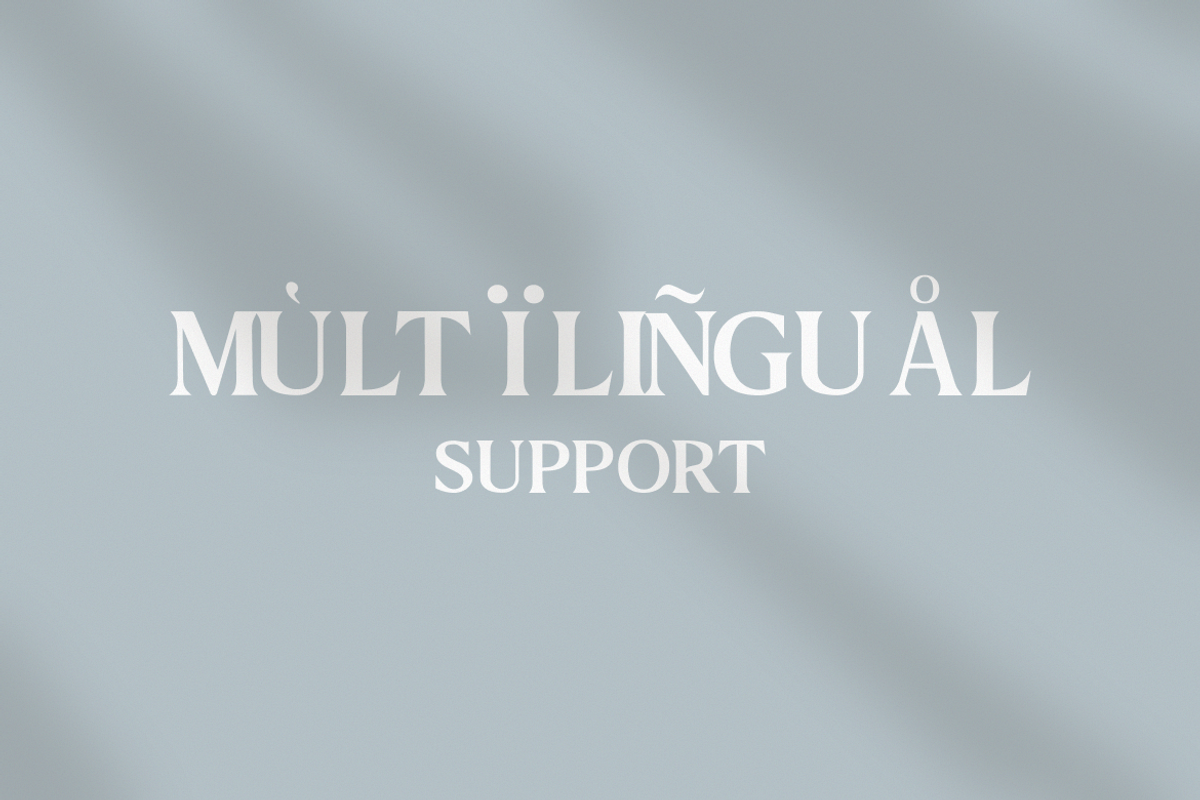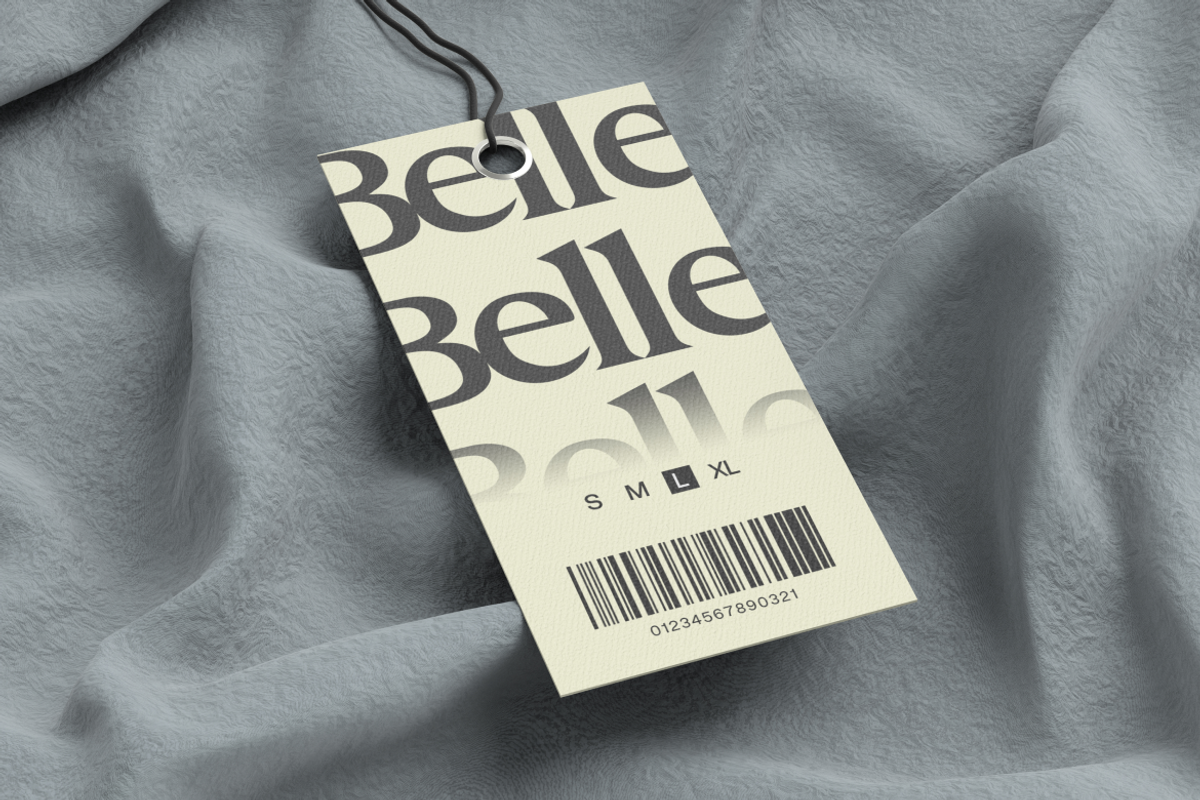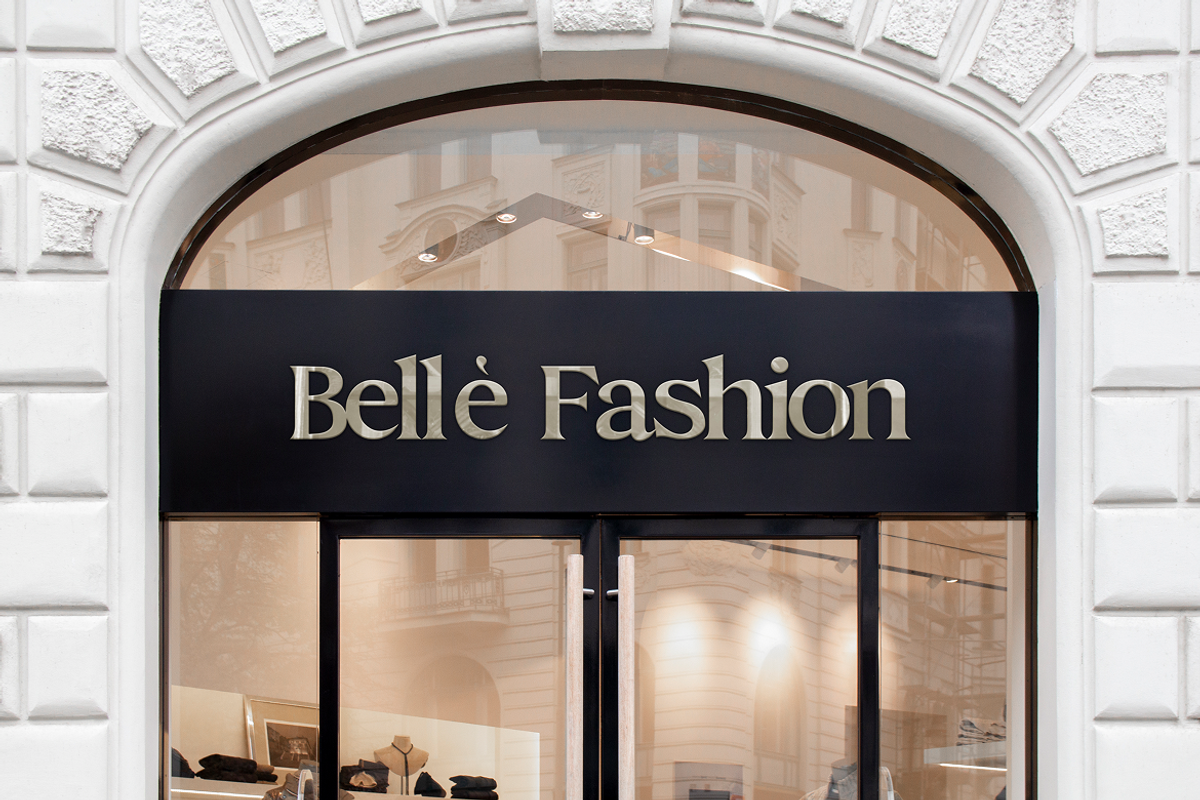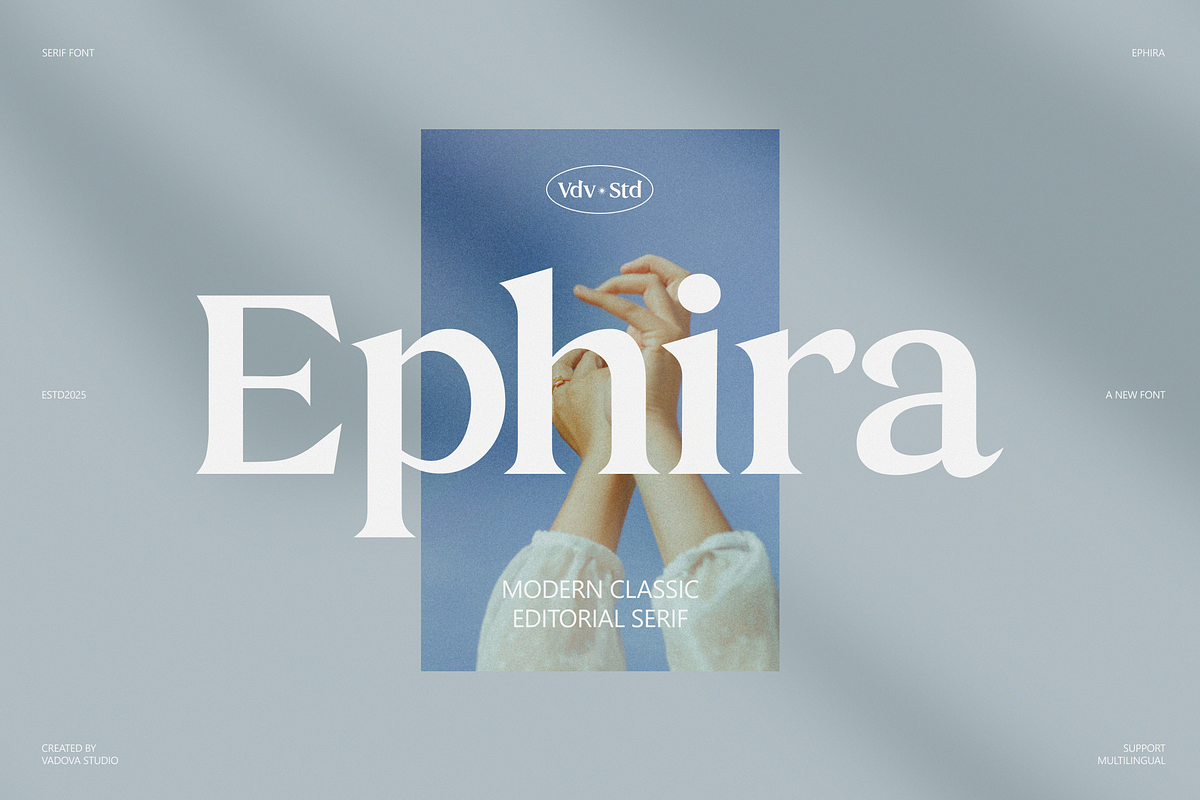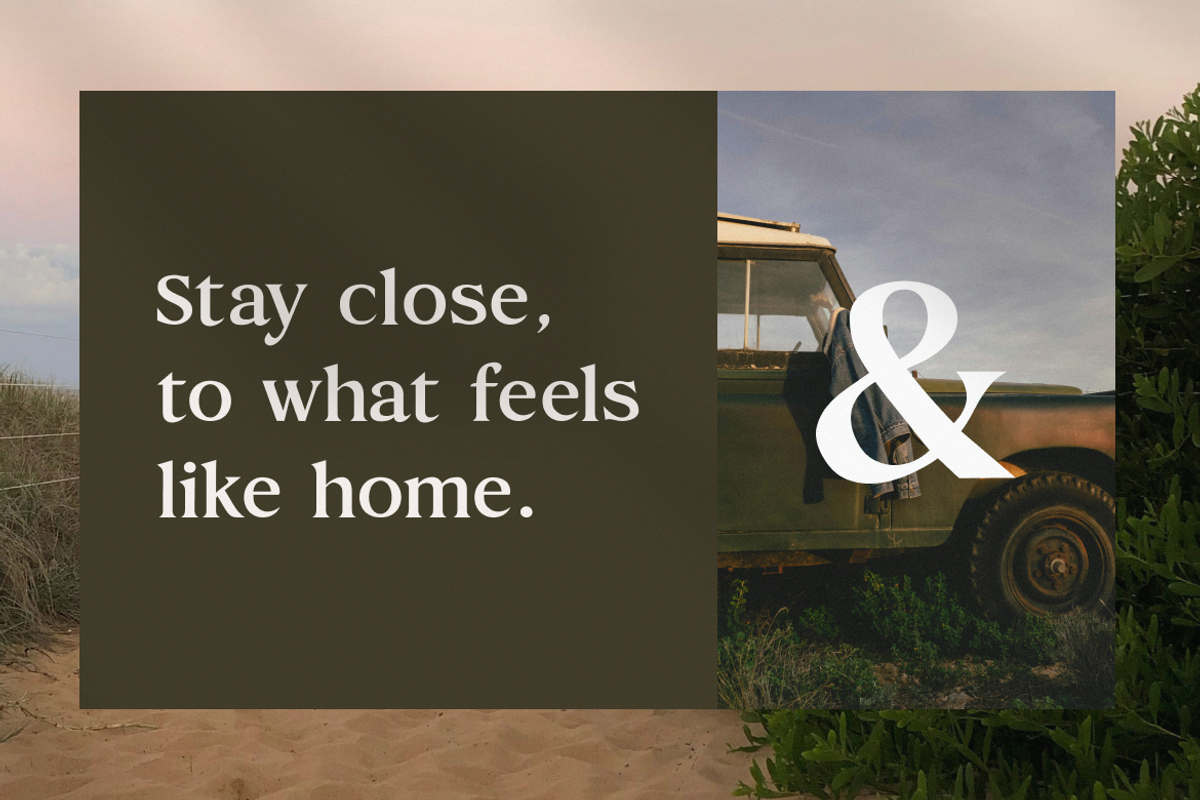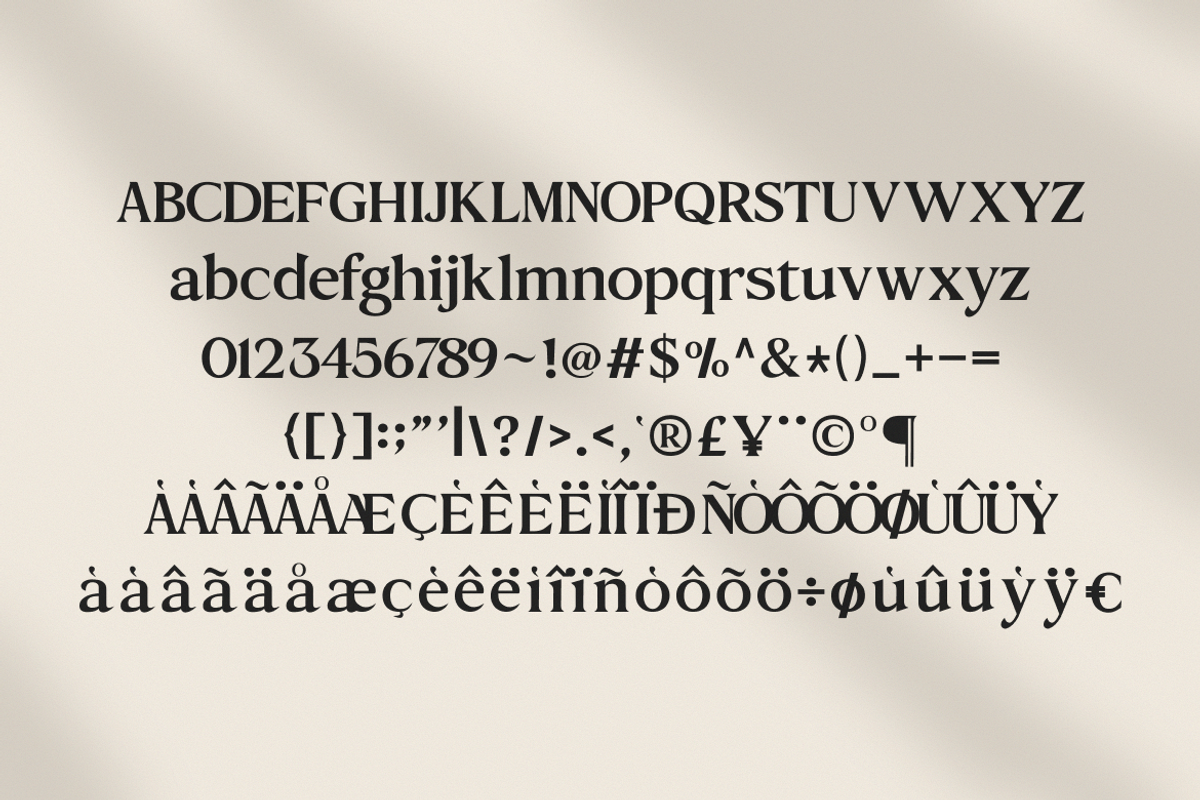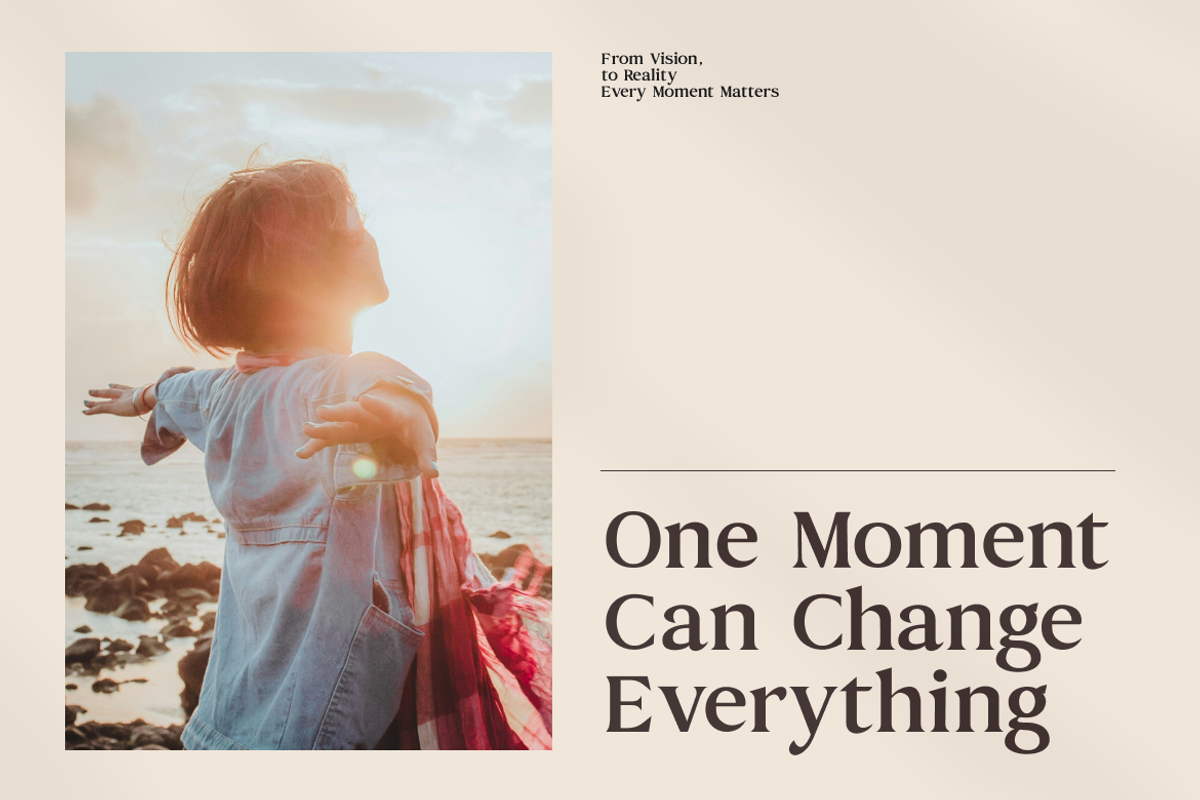
Ephira Modern Editorial Serif Font
Ephira is a refined editorial serif typeface that bridges classic sophistication with contemporary design sensibilities. Its elegant curves, moderate contrast, and timeless letterforms make it ideal for high‑end editorial layouts, branding, and storytelling visuals. Ephira includes a complete set of uppercase and lowercase characters, numerals, punctuation, symbols, and extensive multilingual support. Carefully crafted with balanced proportions and subtle serif details, this font excels in both display and body text. The soft serifs and clean shapes bring a professional, polished look while maintaining readability and character.
Ephira is perfect for designers and brands seeking a versatile serif with both classic elegance and contemporary flair. It performs beautifully in editorial magazine spreads, book layouts, lifestyle blogs, branding projects, premium packaging, corporate reports, and web interfaces where thoughtful typography enhances narrative and mood. Its balance of style and readability ensures it works well from headlines down to longer text passages.
- Balanced serif structure with classic proportions and subtle contrast
- Smooth curves and refined terminals for elegant readability
- Moderate stroke contrast for clarity in both headlines and body text
- Full uppercase, lowercase, numerals, punctuation, and symbols
- Extensive multilingual support for global design needs
- High‑end editorial layouts and magazine spreads
- Branding and visual identity for luxury or lifestyle brands
- Premium packaging and product label typography
- Elegant social media templates and digital marketing headers
- Book design and artistic publications
Let your story unfold with the timeless elegance of Ephira